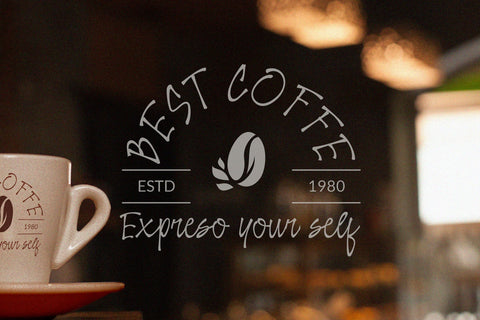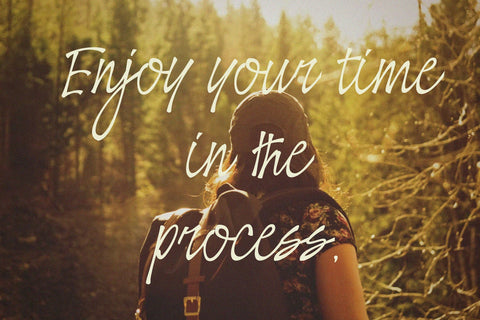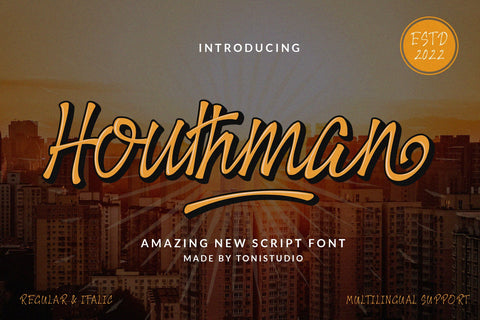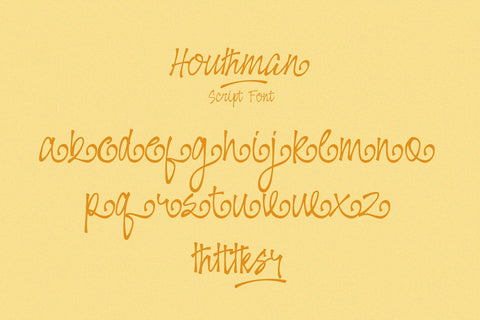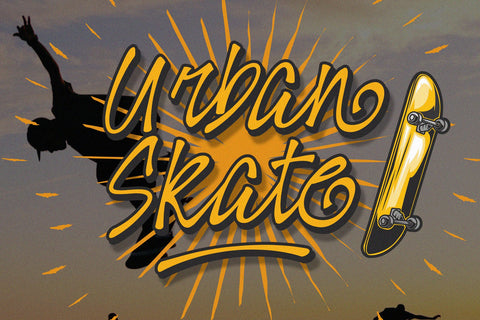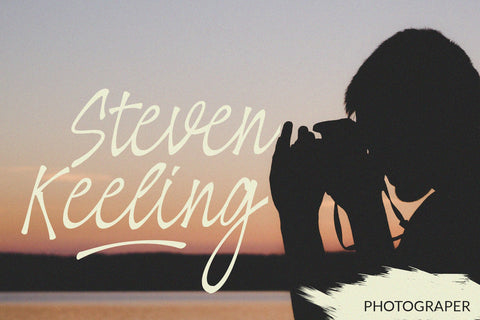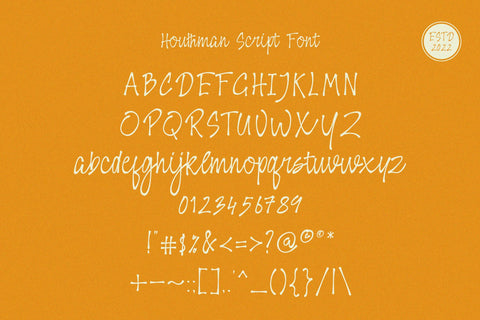
Houthman |Script font
Houthman is a very unique and amazing handwritten script. You can use also for title or signature. This type of font is very suitable to be applied especially to logos, and various other formal forms such as invitations, labels, logos, magazines, books, greeting/wedding cards, packaging, fashion, make up, stationery, novels, labels or any type of advertising purpose.
_Houthman Features_ :
* uppercase,
* lowercase,
* Punctuation,
* Ligature,
* multiple languages,
* alternative